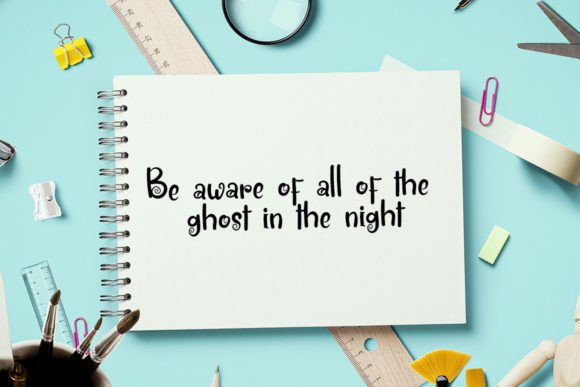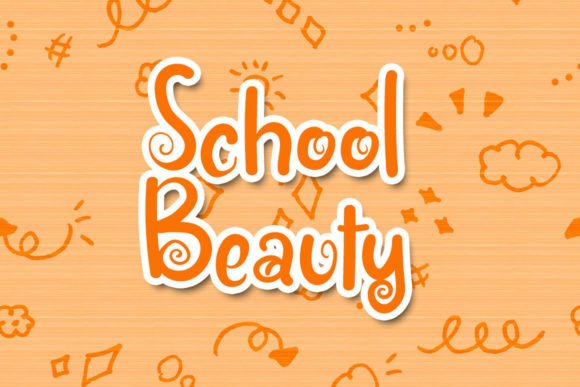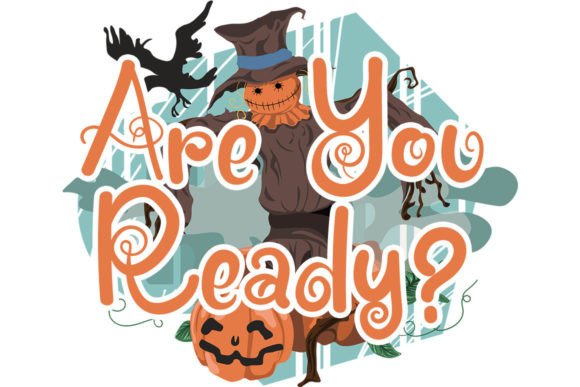
Introduction to Hallowiins Font
Hallowiins is a beautiful and sweet display font.
This font will look amazing in a great number of projects, both formal and informal It will add an incredibly joyful touch to your designs.